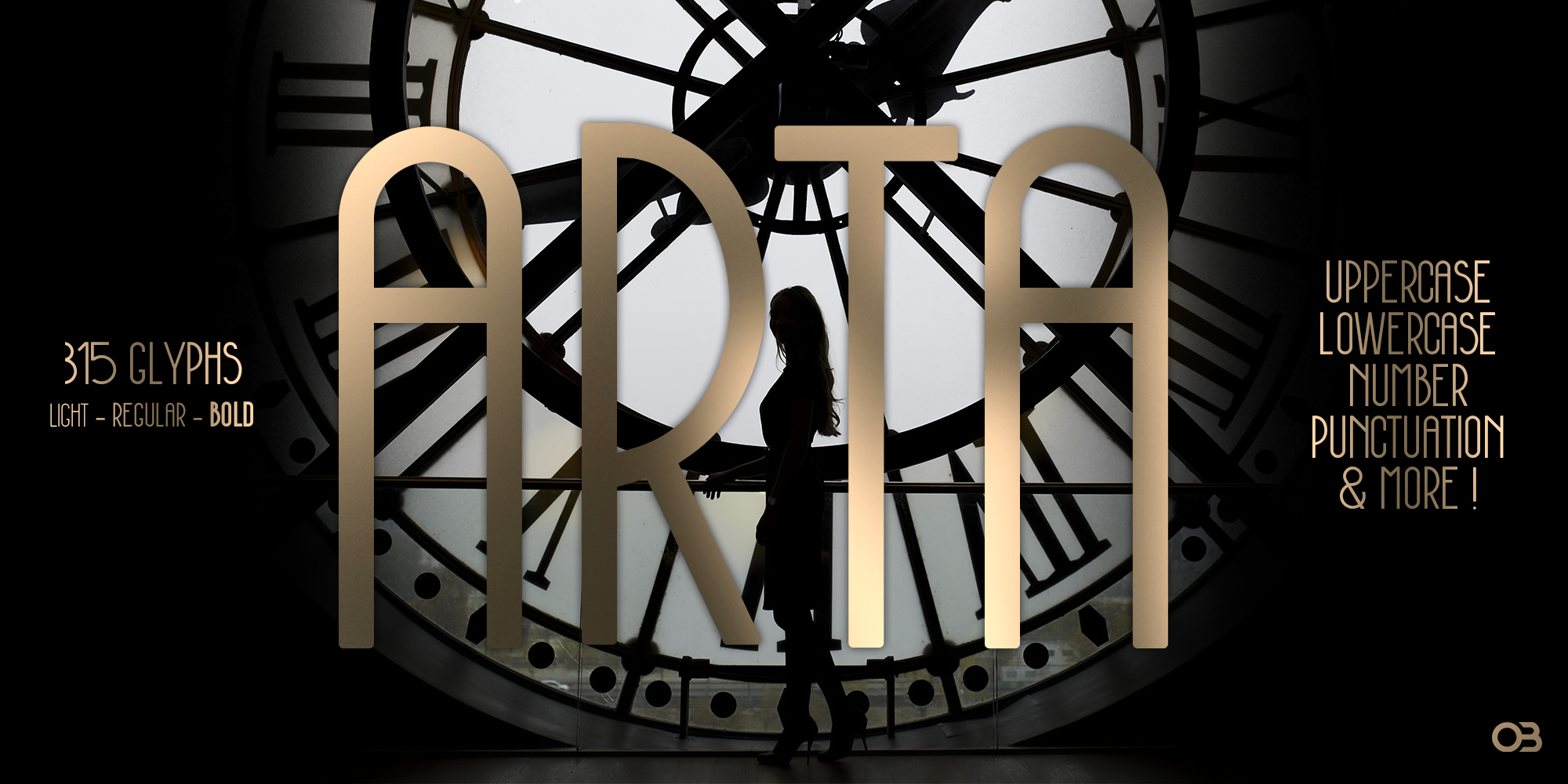
Arta Font is a strikingly modern and artistically inclined typeface, designed to convey creativity, elegance, and a sophisticated minimalist aesthetic. Its clean lines and often unique geometric or abstract forms make it an excellent choice for a variety of contemporary design projects where visual impact and refined style are paramount. Imagine it perfect for high-end art gallery branding, modern museum exhibition titles, sophisticated fashion editorials, innovative tech startup logos, sleek website interfaces, and luxury product packaging. This font excels in environments where precision, functionality, and a polished visual language are key. It ensures your message is not only visually appealing but also effortlessly digestible, making it a powerful tool for effective and streamlined communication that speaks to discerning taste.
What makes Arta Font truly exciting is its ability to seamlessly merge artistic expression with functional design. It often features subtle, unique quirks or a distinctive modularity that gives each character a sense of bespoke craftsmanship and modern flair. This font isn't just about displaying text; it's about transforming words into a visual art form, injecting your designs with a sense of intelligent creativity and avant-garde sophistication. It has a powerful ability to feel both incredibly cutting-edge and surprisingly versatile, making it an ideal tool for designers who want their work to convey innovation, clarity, and a truly memorable visual impact. Arta Font empowers brands and creatives to project an image of confident artistry and visionary design.
The Arta Font family typically offers a range of weights and styles to ensure maximum versatility for diverse design projects. You'll often find it includes a spectrum from light or thin to regular, medium, and bold, sometimes extending to ultra-bold or black weights, providing robust options for typographic hierarchy and emphasis. Corresponding italic styles may also be available, allowing for dynamic variations in text presentation. This extensive family ensures that Arta Font Free Download can adapt seamlessly to any design challenge, from powerful headlines that demand attention to clear, impactful sub-headings, all while maintaining a consistent and harmonious visual language. Its broad character set usually covers a wide range of Latin characters, numbers, and extensive punctuation, making it suitable for international projects and complex textual layouts.